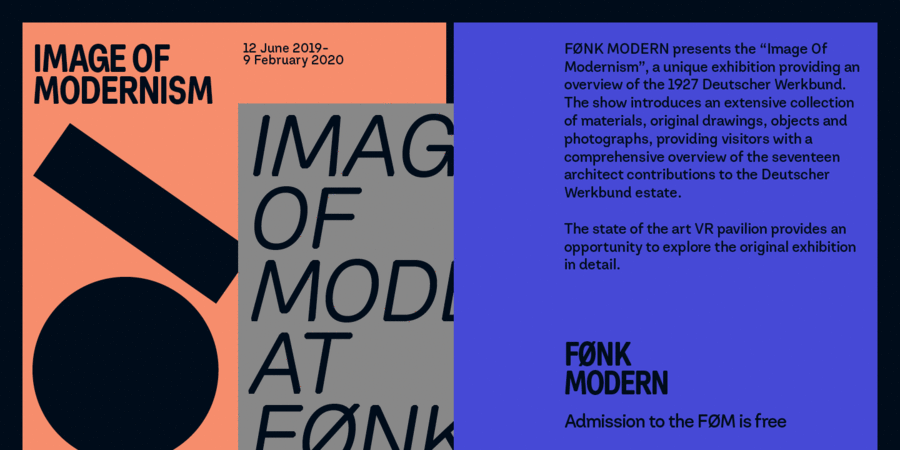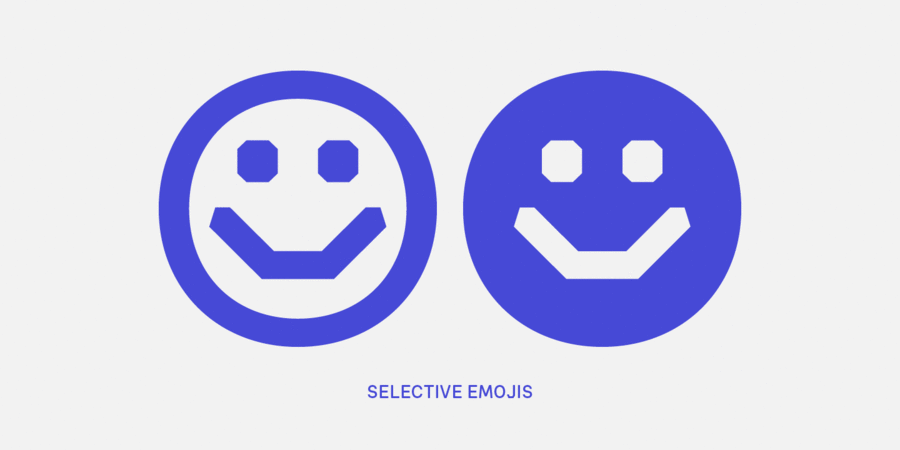
About Hegval Display is a sans-serif type family inspired by Gridnik and Helvetica. It is a geometric and neo-grotesque fusion. Mildly eccentric, Hegval Display features minimal stroke contrast, geometric design elements and selective emojis. Hegval Display is available in ten weights and two styles, both upright and oblique. The character set supports extended Latin and Cyrillic. OpenType features include ligatures, tabular features and fractions. Designed by Mariya Pigoulevskaya in 2019. Hegval Display™ is a trademark of The Northern Block.